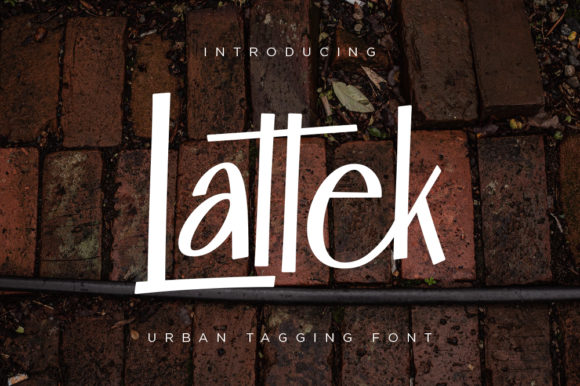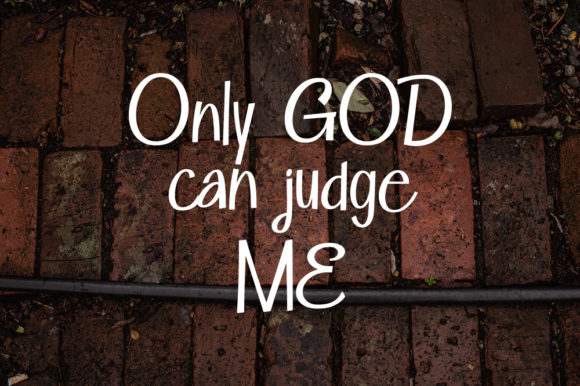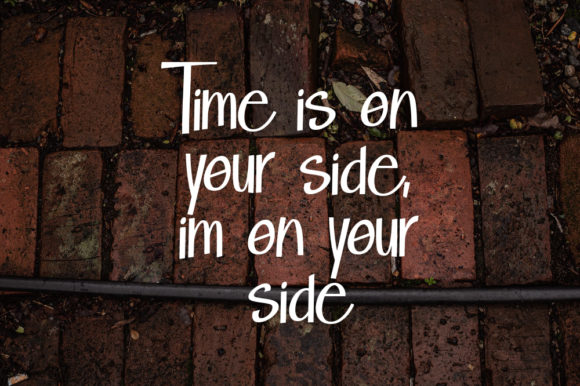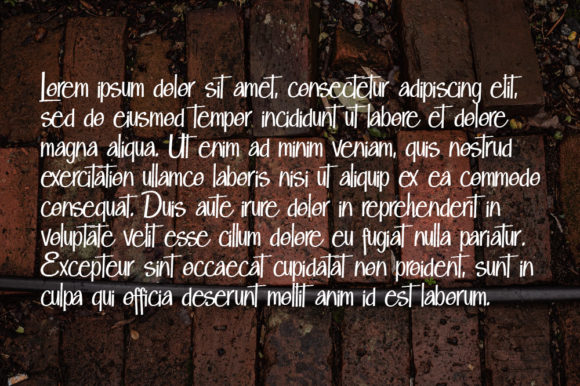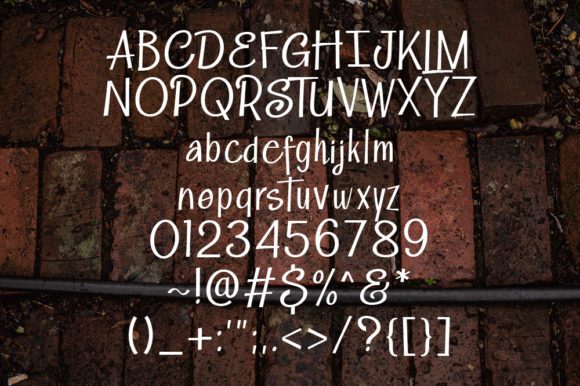
Lattek Font
About Lattek Font
Lattek is a distinct, elegant script that blends traditional influences into a contemporary aesthetic. Its well balanced Latin details contain distinctive contrasts. Use Lattek to achieve an exquisite, yet subtle look and maximum versatility.